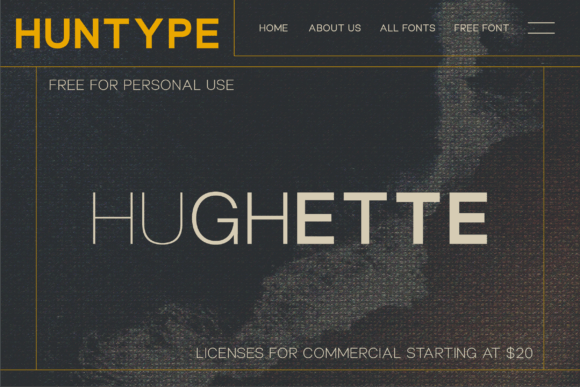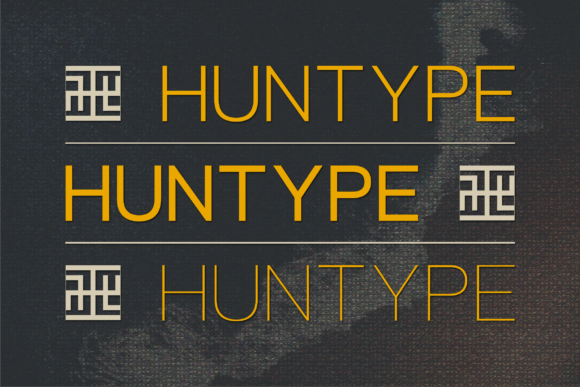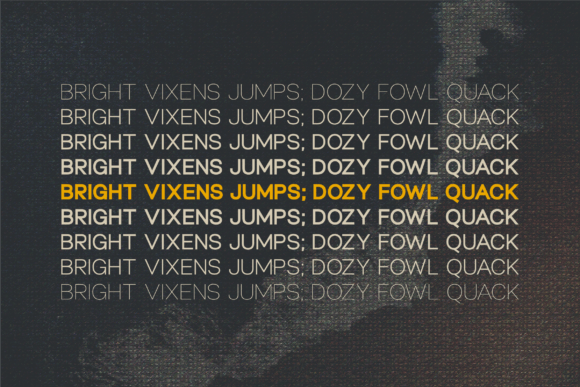
Introduction to Hughette Font
Introducing Hughette Sans Serif Font Family, a meticulously crafted font family that epitomizes elegance, modernity, and versatility.
With its five distinct weightsβ€”THIN, LIGHT, REGULAR, BOLD, and BLACK Hughette Font Family offers a wide range of creative possibilities, making it the perfect choice for designers and content creators.
Key Features of Hughette Font
Why Choose Hughette Font?
Hughette Font offers exceptional quality and versatility, making it a valuable addition to your design toolkit. Whether you’re creating for personal projects or commercial use, Hughette Font delivers professional results.